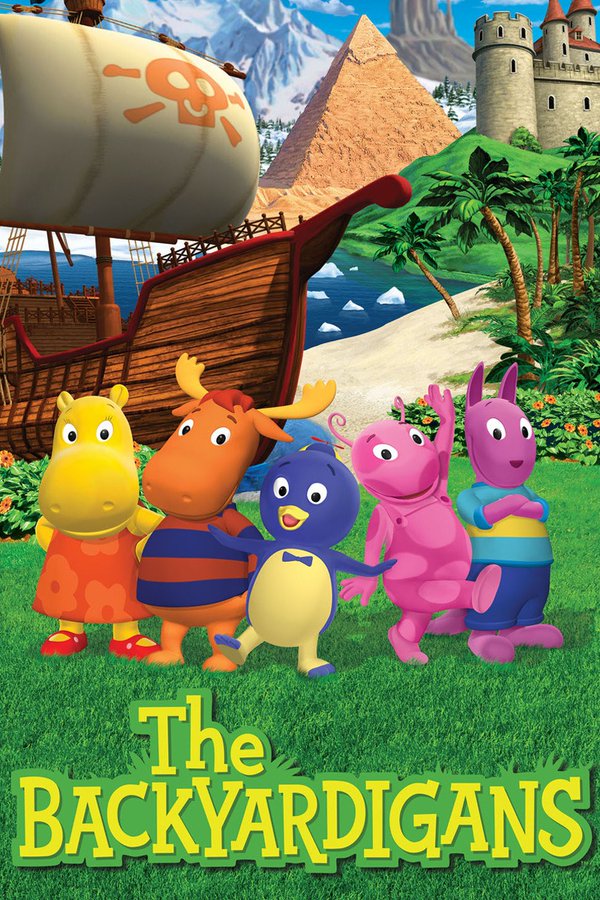
The Backyardigans Font
AdventureThe Backyardigans is a children's animated television series that aired on Nickelodeon from 2004 to 2010. It follows the adventures of five animal friends who live in a backyard and use their imaginations to travel to different locations and have exciting adventures.
The title of The Backyardigans series is most probably set in Rat Fink Heavy which is a part of House Industries’ Rat Fink collection designed by Ken Barber in 1993. The font is available for purchase here.